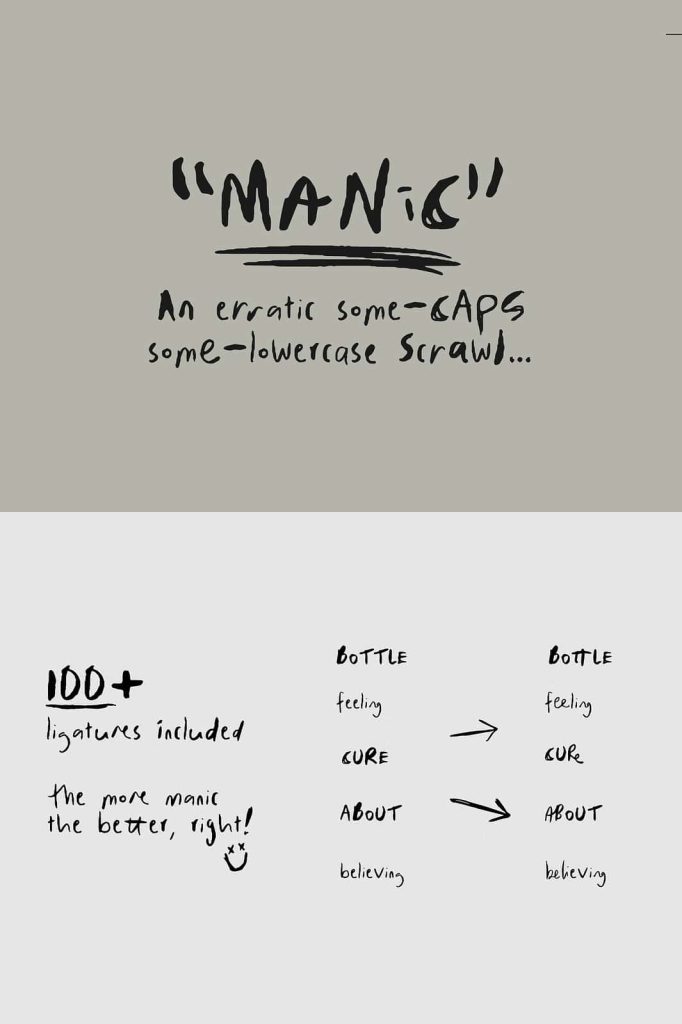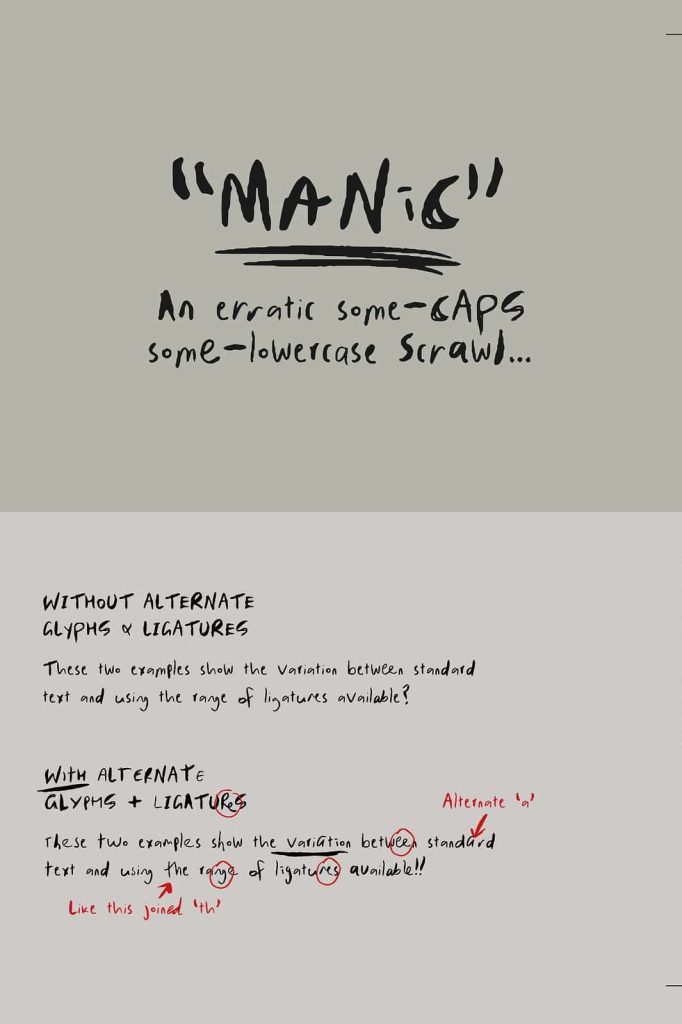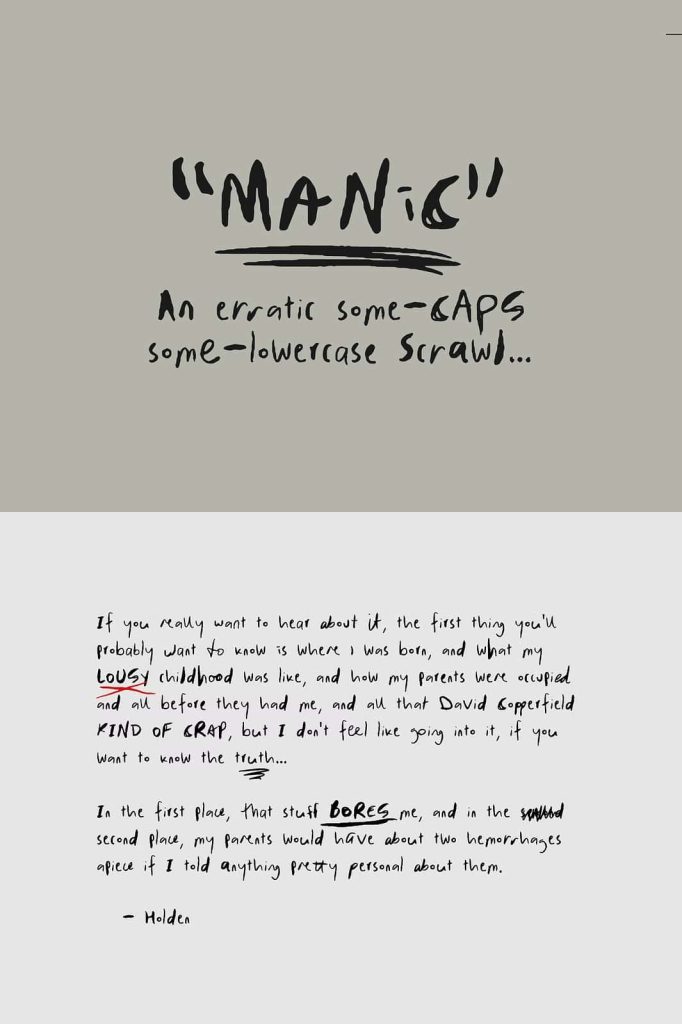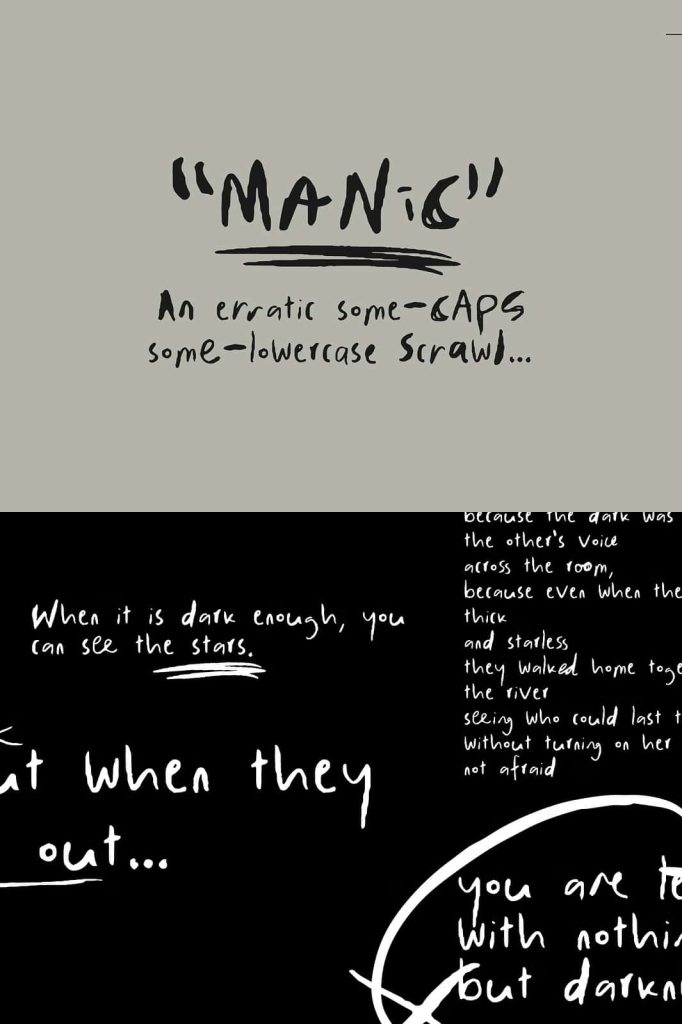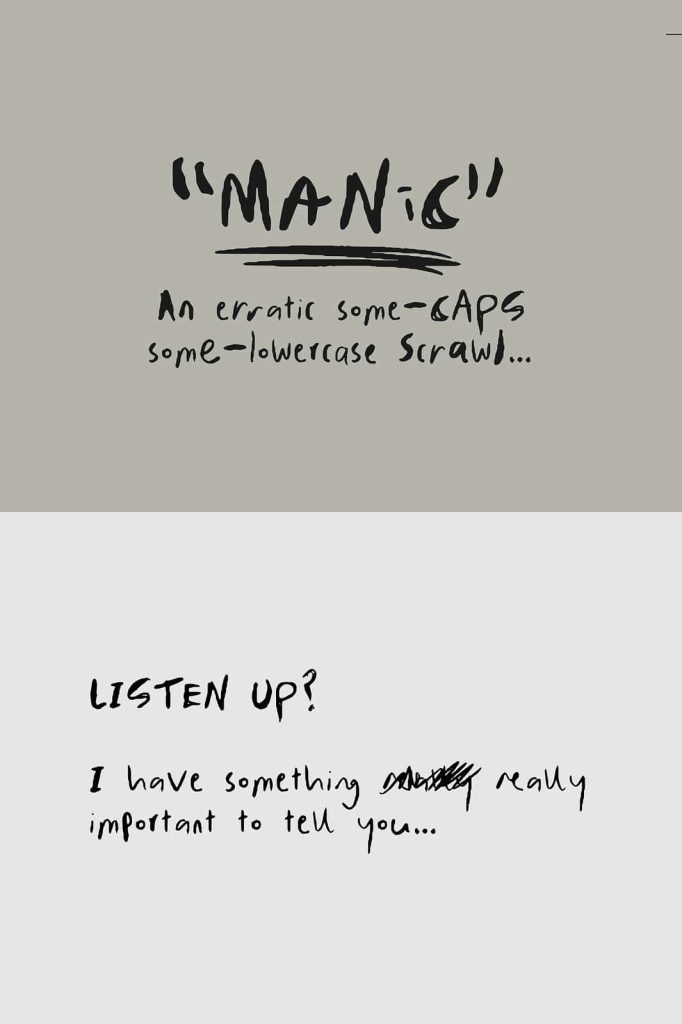
An erratic some-caps some-lowercase scrawl… aka handwriting font. Messy and realistic. Hand-drawn and transformed into a font for all your manic typography needs.
Three ‘Alternate’ font styles means there are a total of four variations for each A-Z letter and number, with each individual font style producing a slightly different (but always manic) overall look.